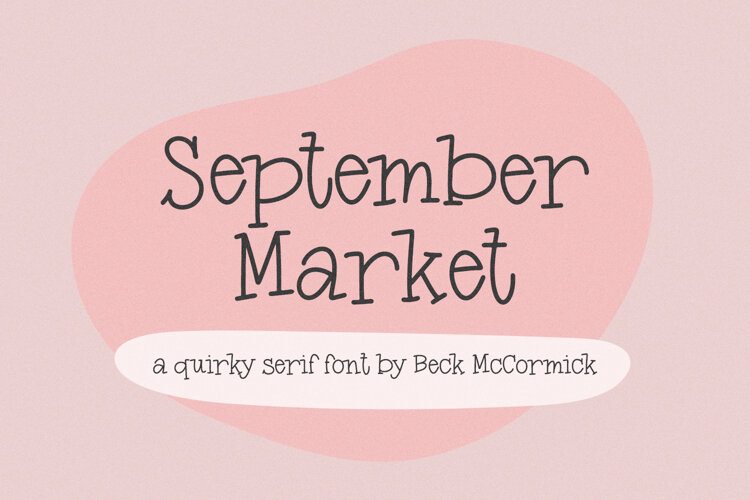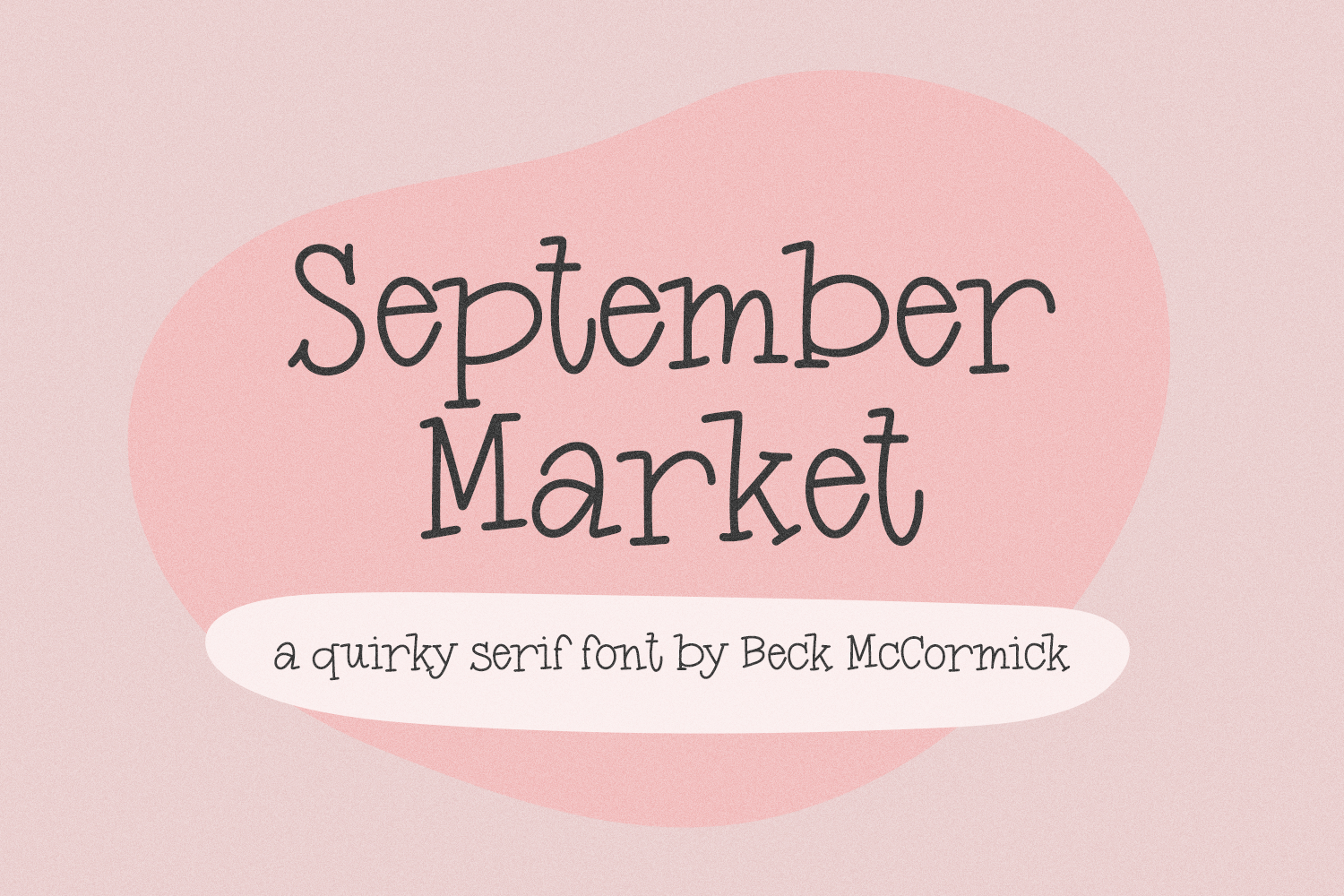
September Market Serif
September Market Serif is a cute typewriter font. This serif font is neat & thin, with just enough playfulness. September Market Serif is perfect for logos & branding, greeting cards, painted banners, digital planners, note-taking apps, Canva, Cricut projects, Silhouette projects, designing SVG files, laser cutting projects, & more.